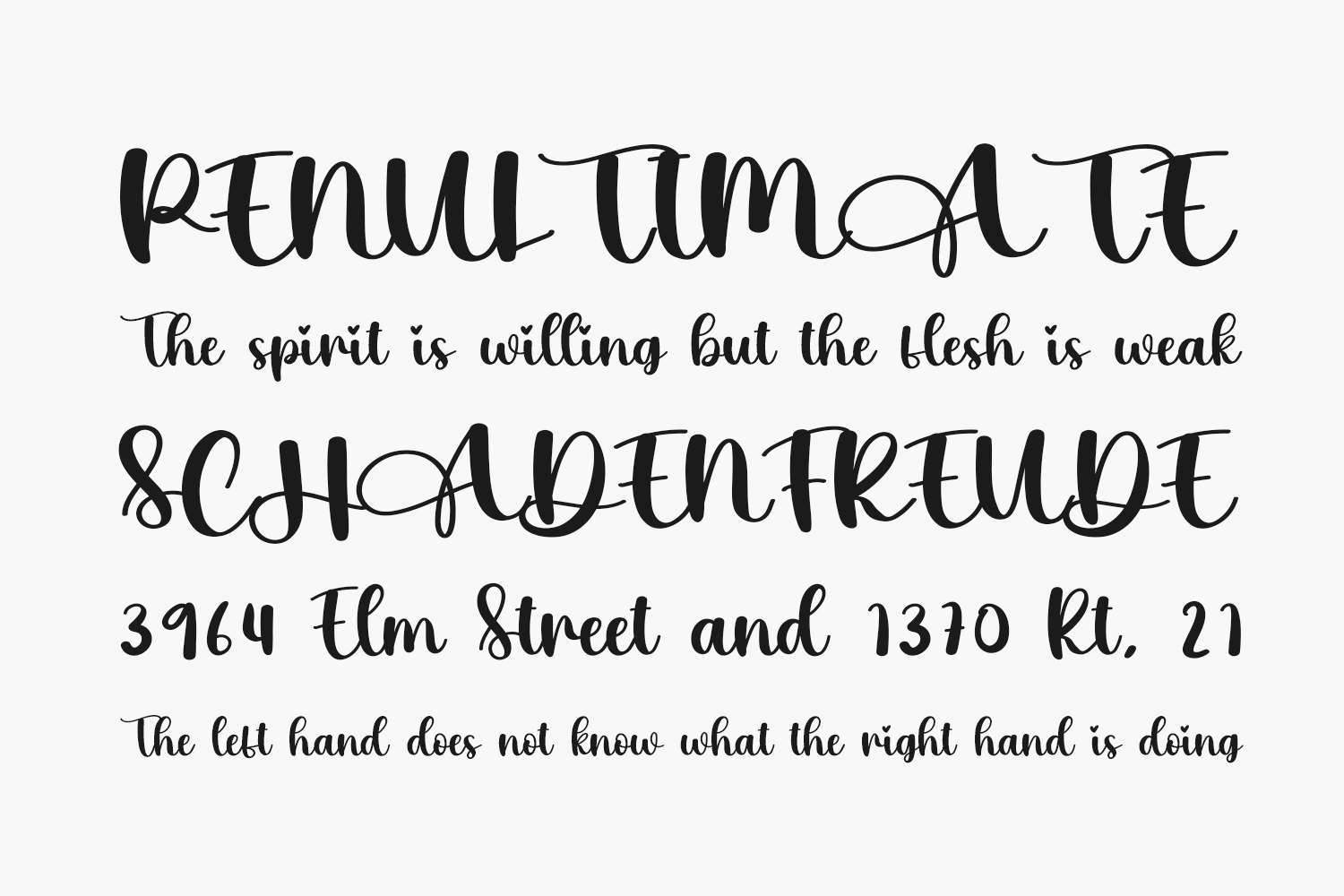
Hippie Girl Free Font is an elegant and delicate script font that adds a touch of style to any project. Whether you’re designing a logo, working on branding projects, creating labels, capturing photography, watermarking your work, or planning special events, this font is the perfect choice to infuse your projects with a beautiful script aesthetic. Let Hippie Girl enhance the charm of your lovely creations and bring a delightful script flavor to all your design endeavors. Hippie Girl Free Font is free for personal use only. Please purchase the full version for commercial use.